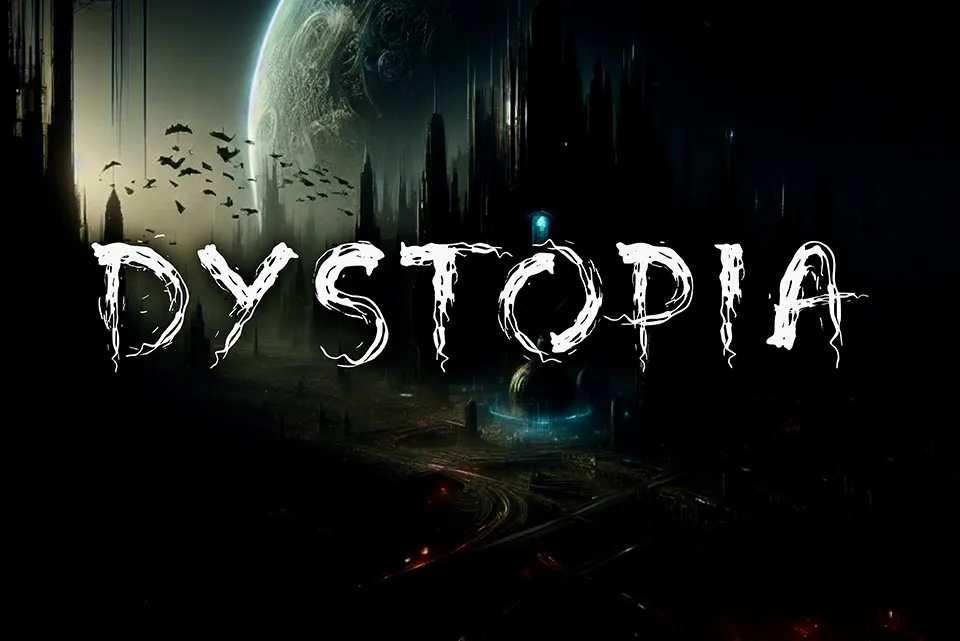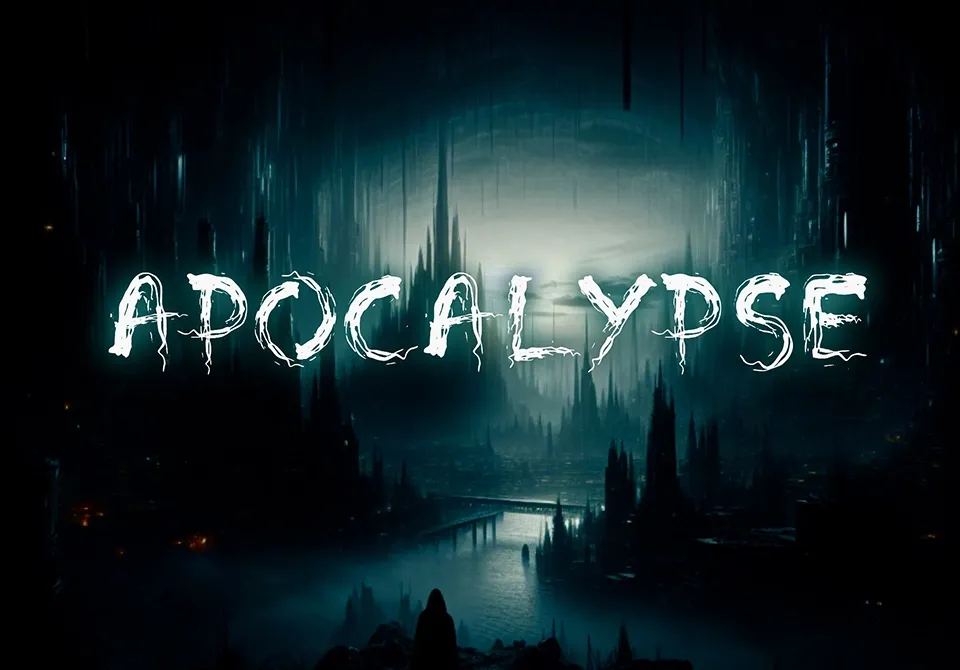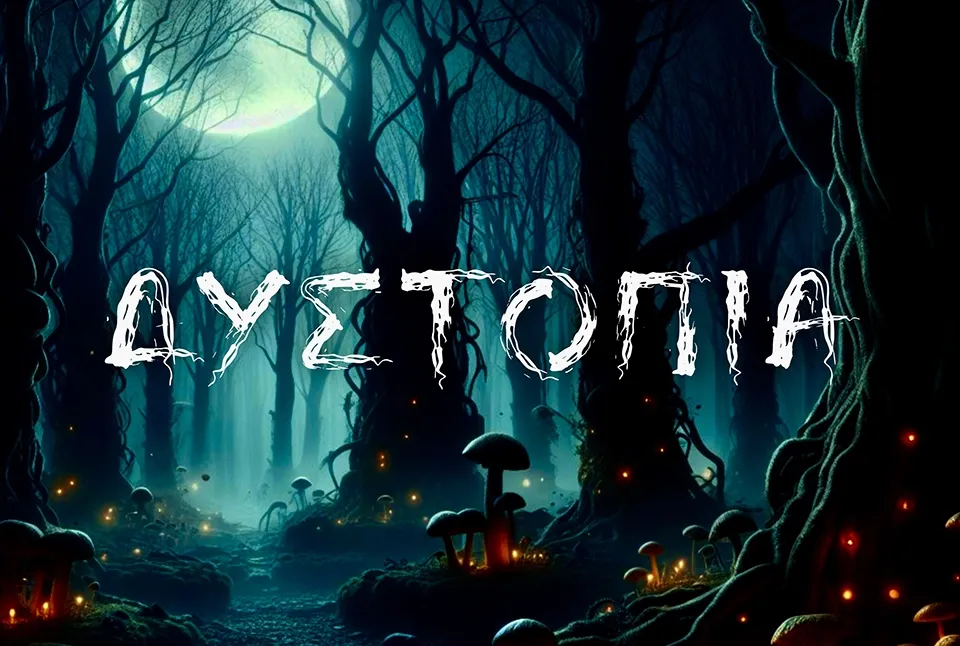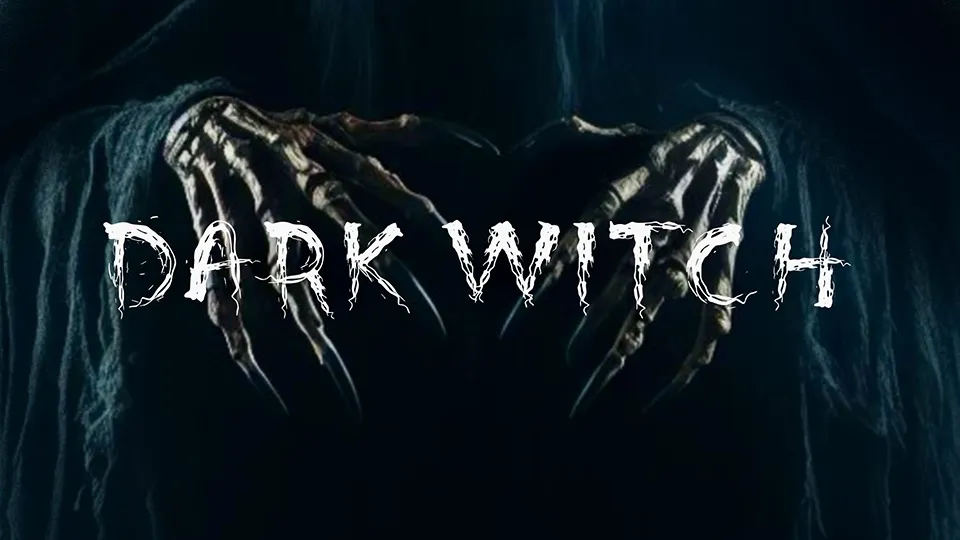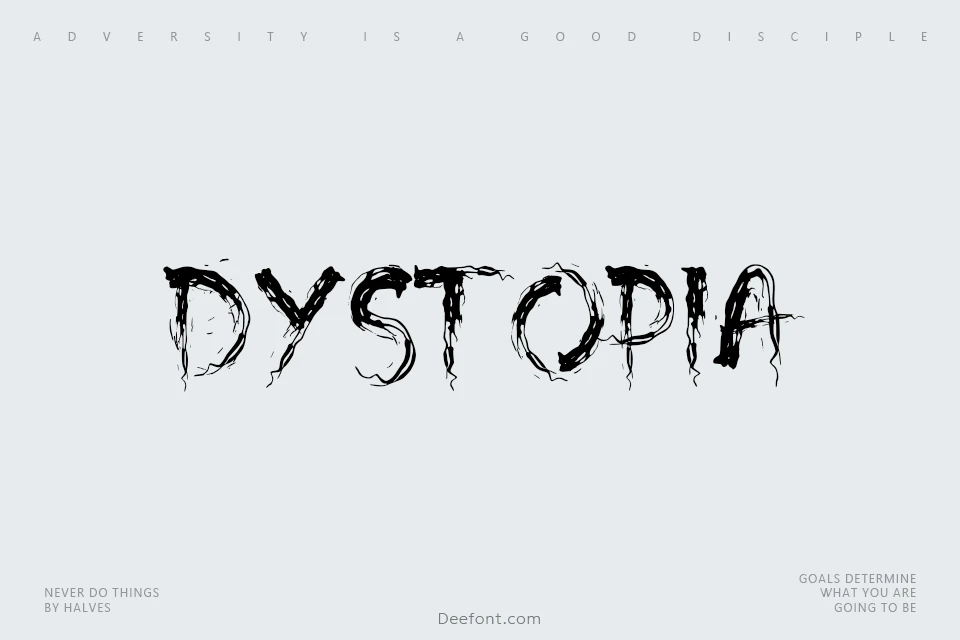
Dystopia Font
Dystopia Font is a striking typeface that embodies the essence of a dark, futuristic world. Its jagged, distressed letterforms evoke a sense of decay and chaos, making it perfect for projects with dystopian, sci-fi, or horror themes. Designed to stand out, this font captures the raw and gritty aesthetic of a society on the brink of collapse. Ideal for posters, book covers, and branding, Dystopia Font adds a dramatic edge to any design. With its bold personality and unique style, it serves as a powerful visual tool to convey tension and unease in creative storytelling.